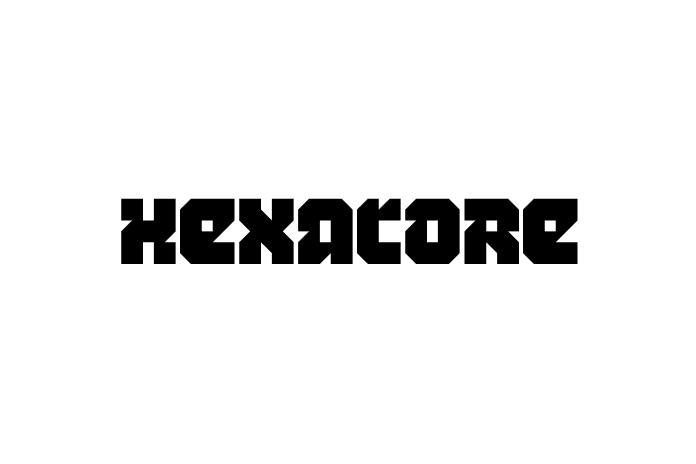
SF Sports Night
Introducing the modern SF Sports Night Font, is a cool and modern techno looking display Font This font is ideal for writing web designs, business cards, or pretty much anything else that requires a unique touch, this font designed by Derek Vogelpohl is available for free download and personal use.
Font name SF Sports Night
Font designer Derek Vogelpohl
Font Family SF Sports Night
Typeface classification Techno